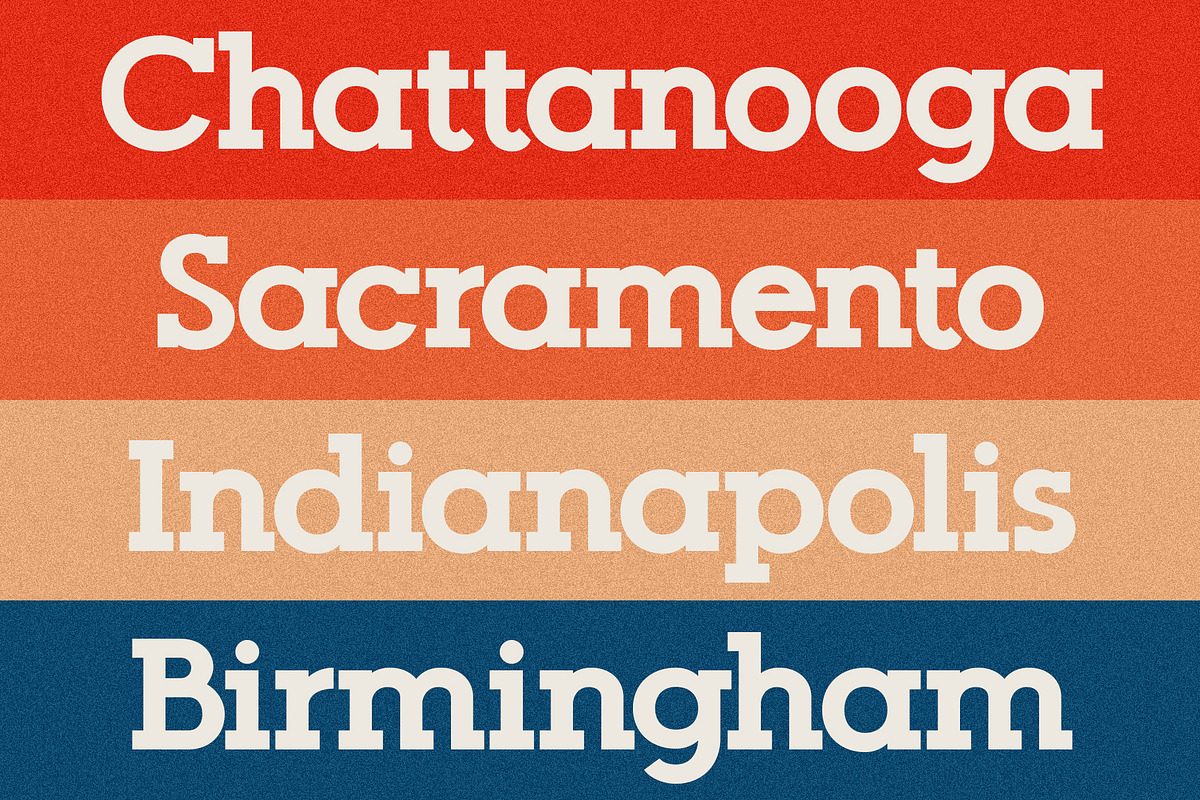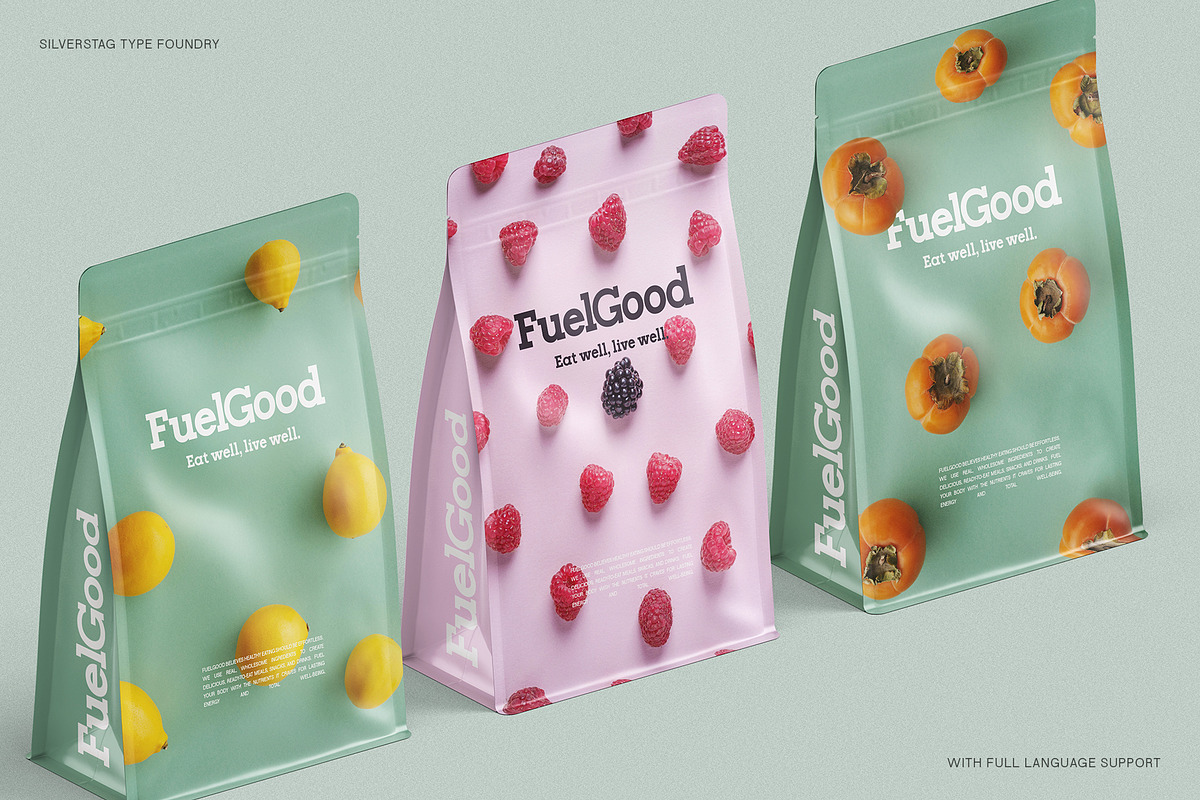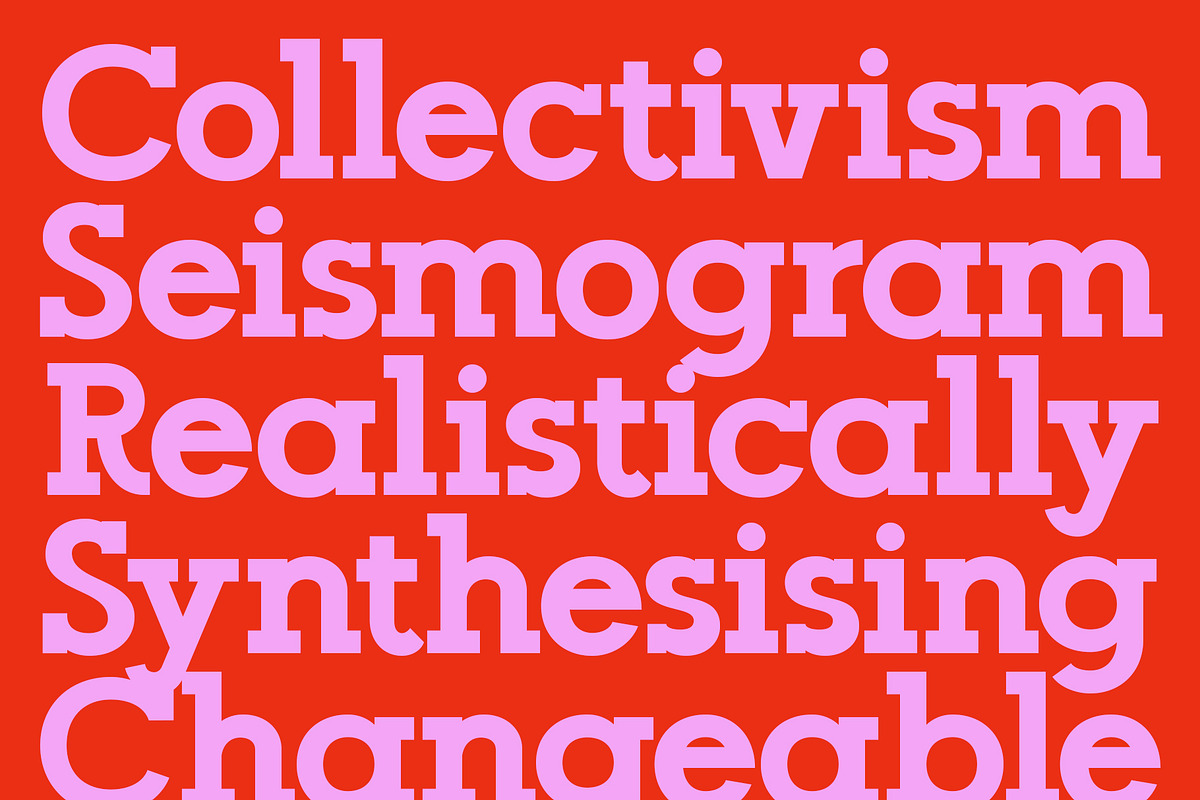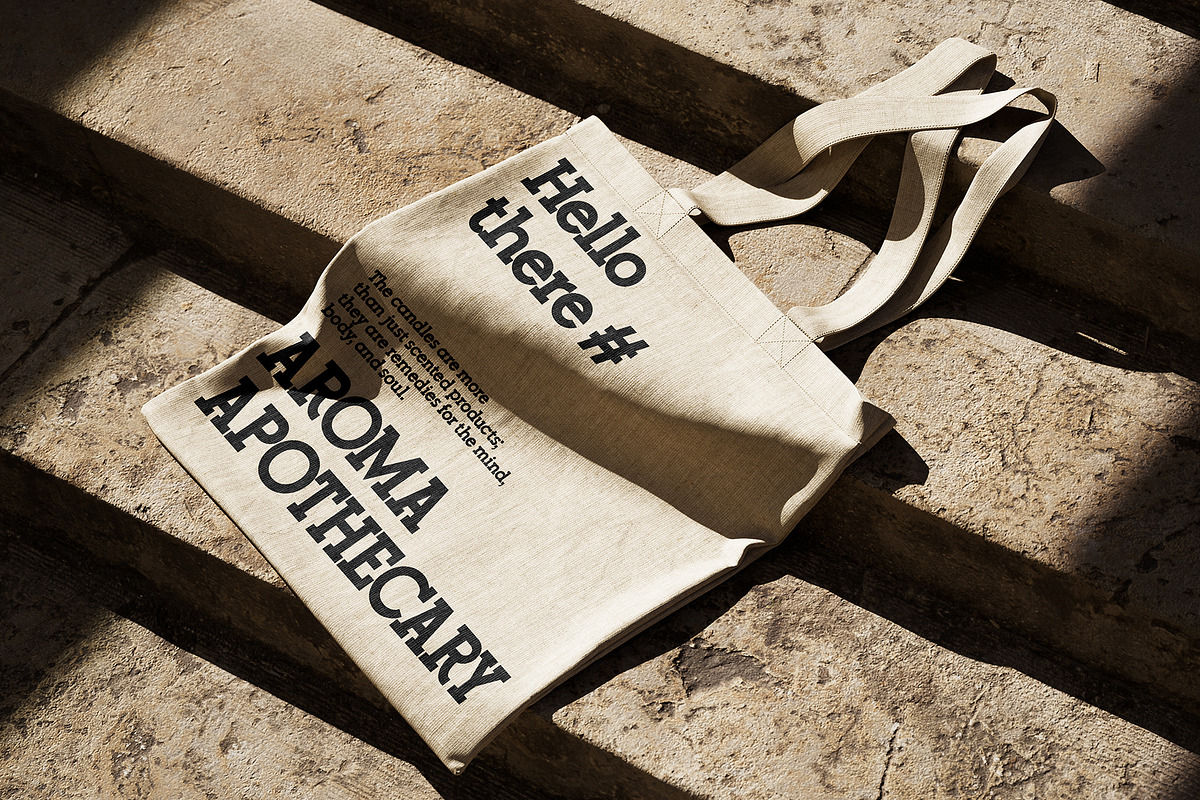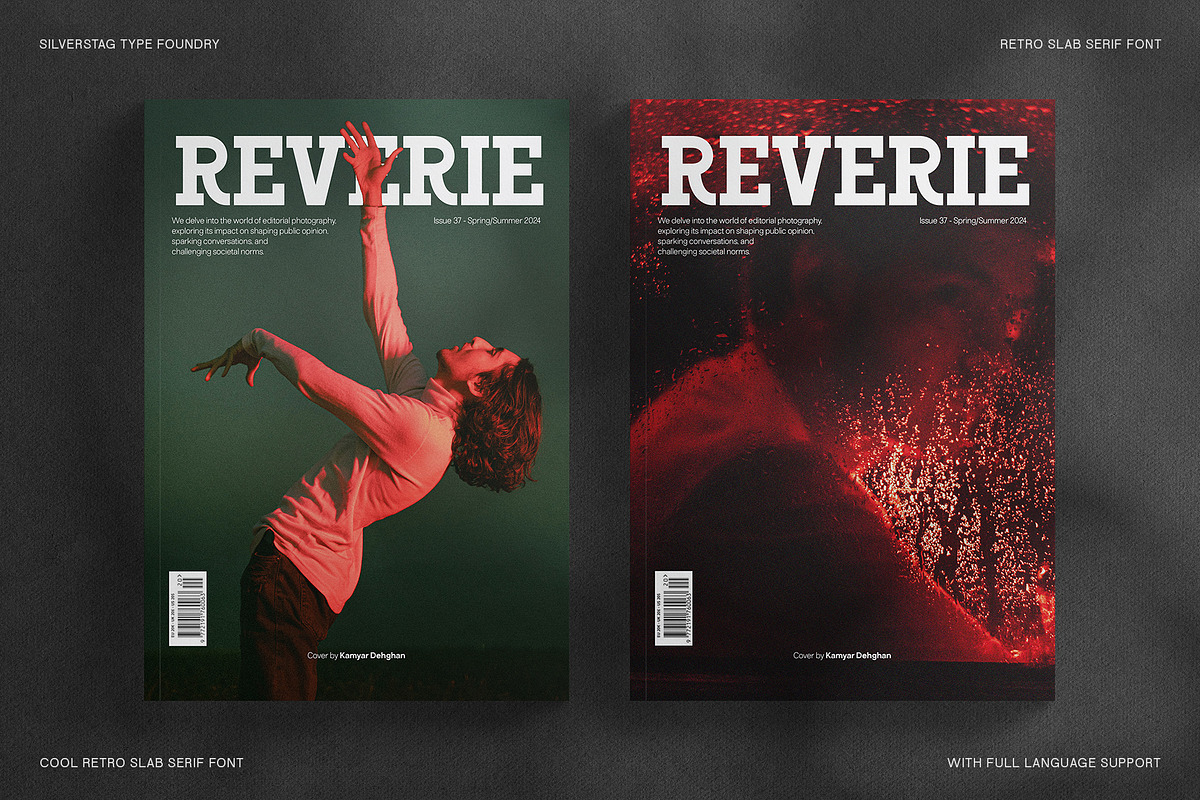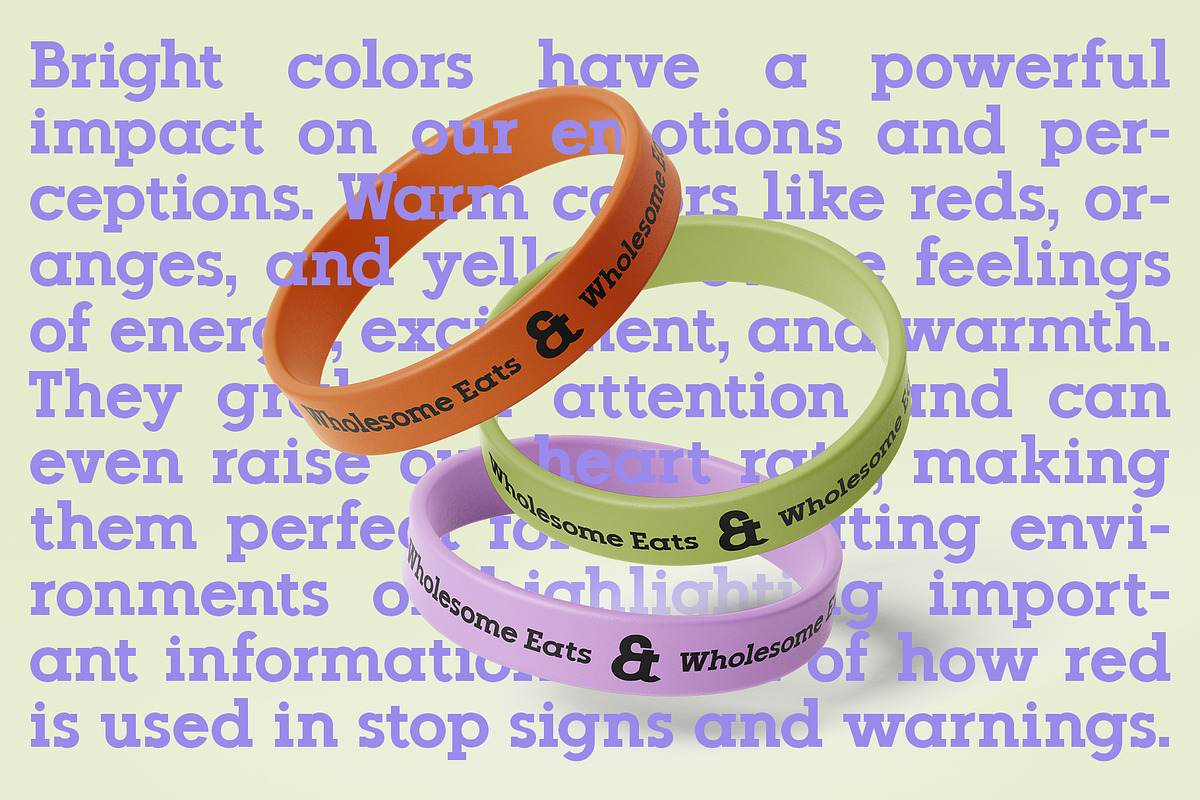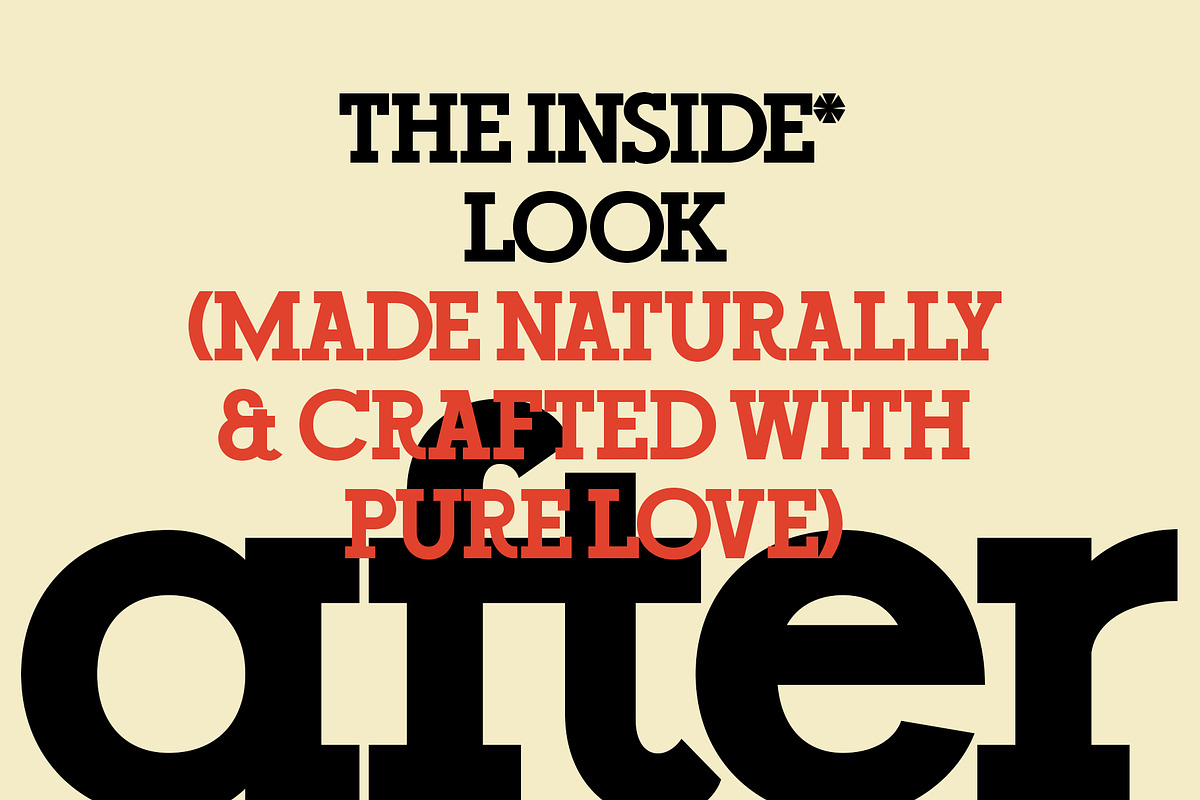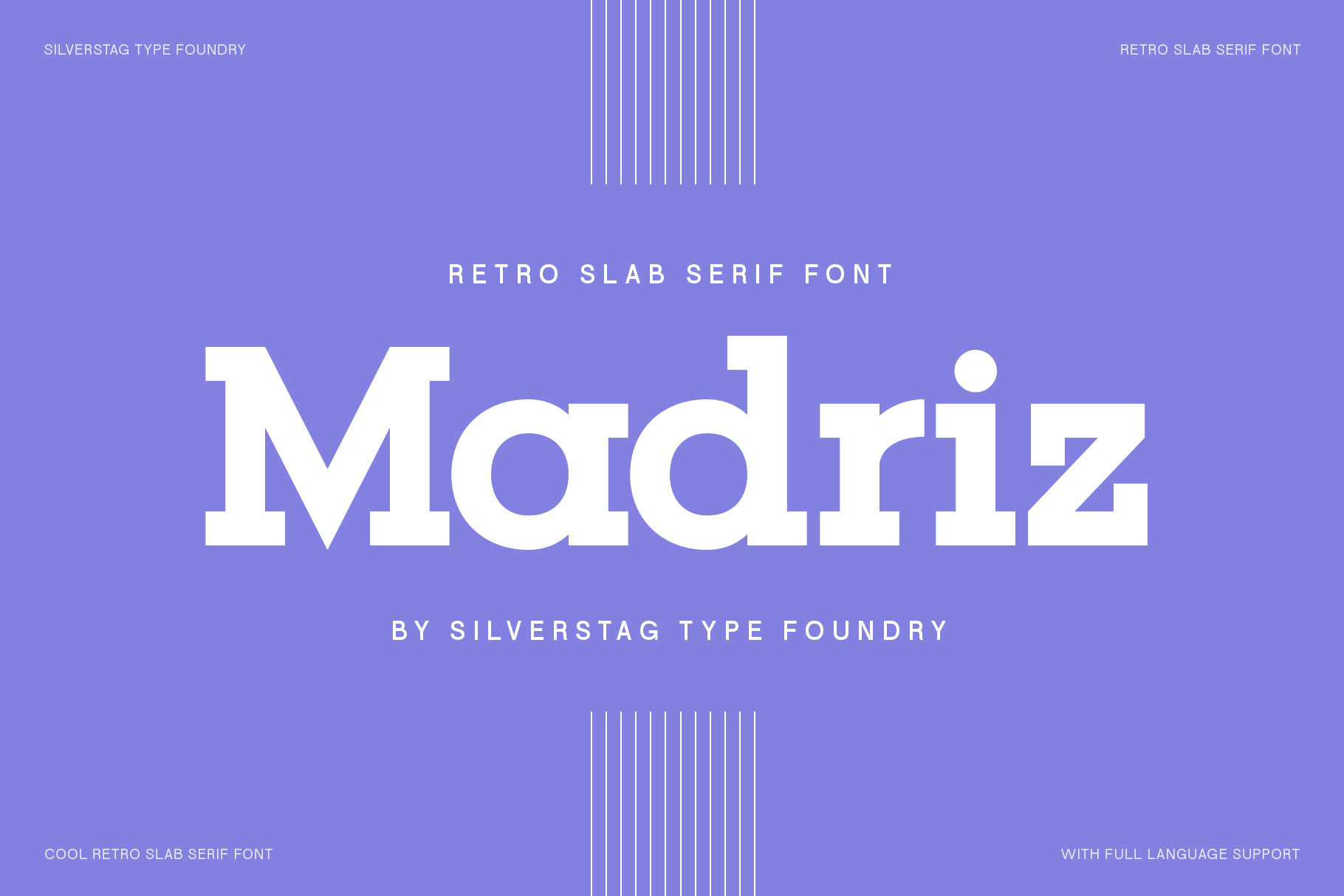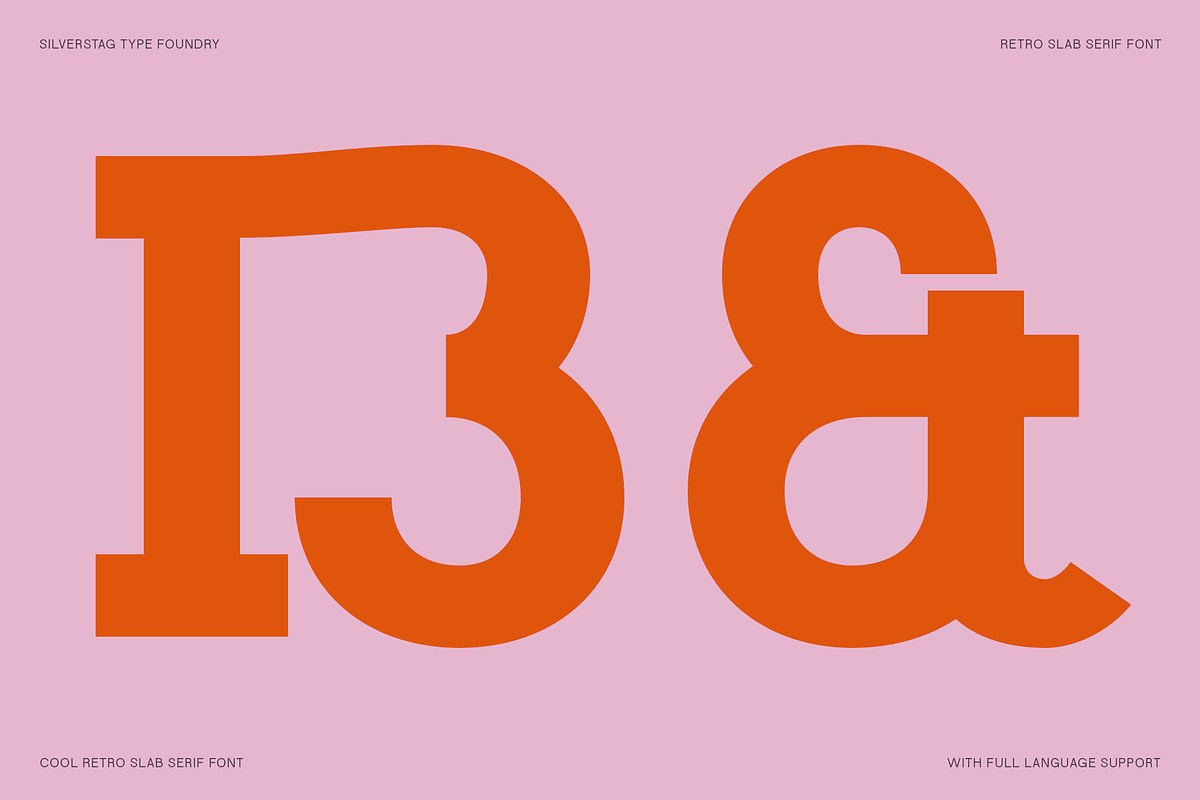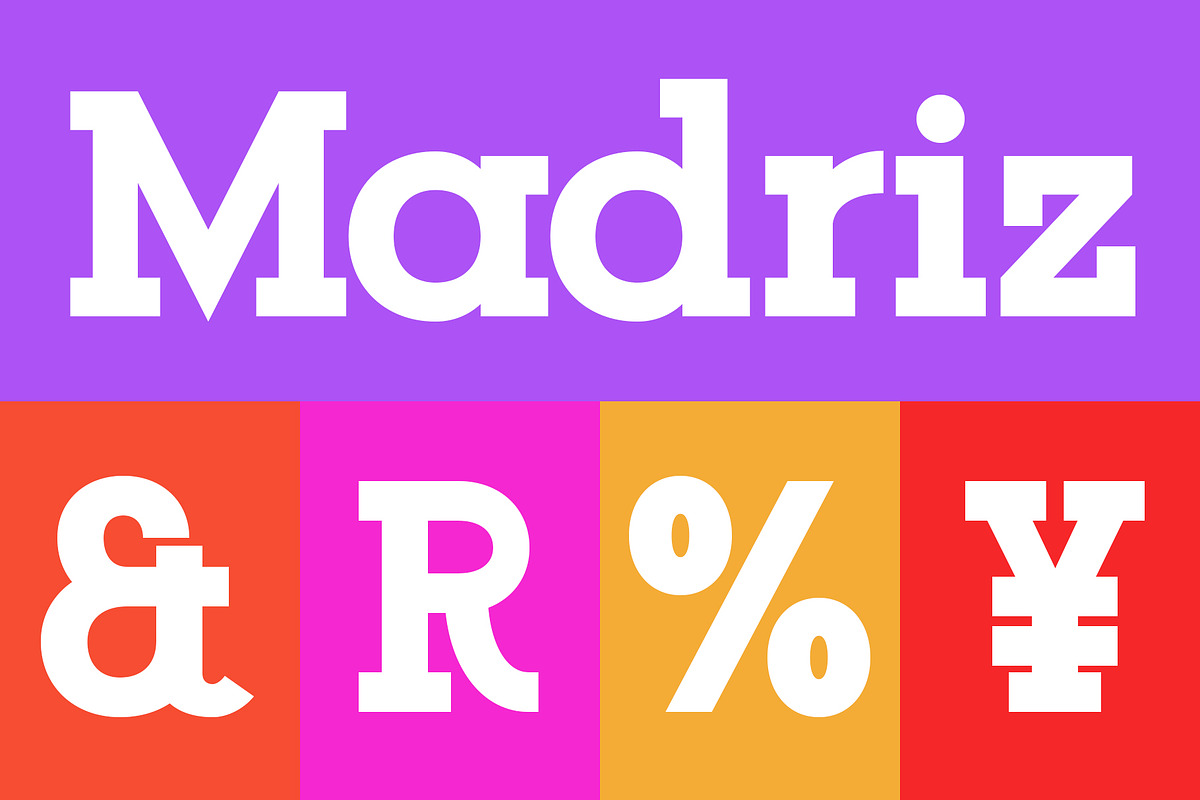
Madriz Black - Retro Slab Serif Font
Introducing Madriz Black: The Retro Slab Serif with Maximum Impact
If you loved the vintage charm and bold personality of the original Madriz, get ready for its boldest element: Madriz Black. With its chunky serifs, strong angles, and undeniable presence, Madriz Black demands attention and infuses your designs with retro flair turned up to eleven.
- Commanding Presence: Perfect for headlines, logos, posters, and packaging that needs to stand out from the crowd.
- Expansive Character Set: Over 320 glyphs including extensive language support for over 90 languages, ensuring your message translates globally.
- Versatile Style: Blends a 1970s aesthetic with modern sensibilities, making it relevant for everything from fashion editorials to music festival branding.
- Inspired by Vintage Type: Evokes the spirit of classic display fonts but reimagined for the contemporary designer.
Where Madriz Black Shines:
- Unforgettable Branding: Craft bold logos and wordmarks that leave a lasting impression.
- Dynamic Posters & Packaging: Turn product packaging and event posters into graphic statements.
- Expressive Typography: Create web headers, social media graphics, and editorial layouts with a touch of retro cool.
Experience the Power of Madriz Black
Add a dose of unapologetic boldness to your design arsenal with Madriz Black. Whether you're channeling a 70s rock-and-roll vibe or aiming for a modern twist on retro, this font delivers impact with a touch of playful nostalgia.